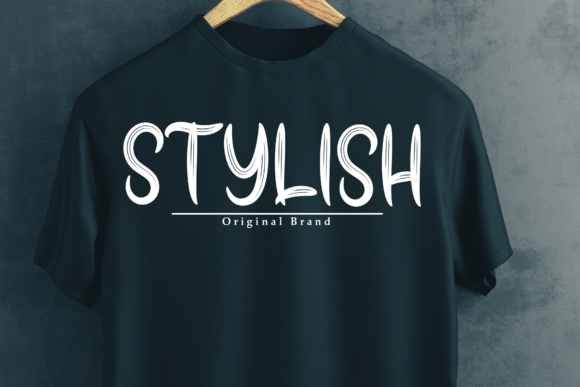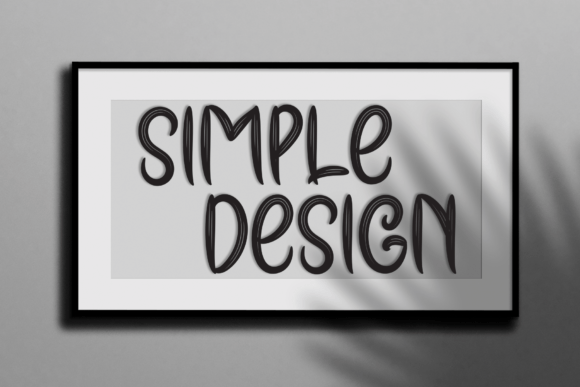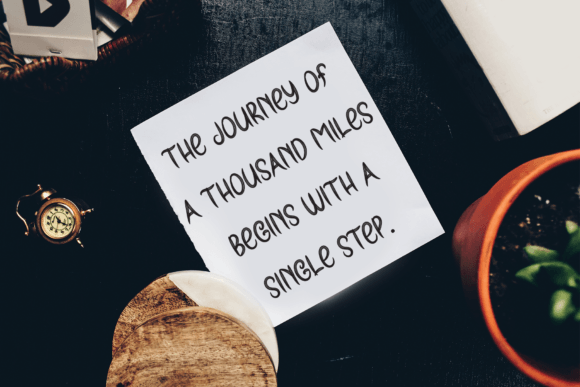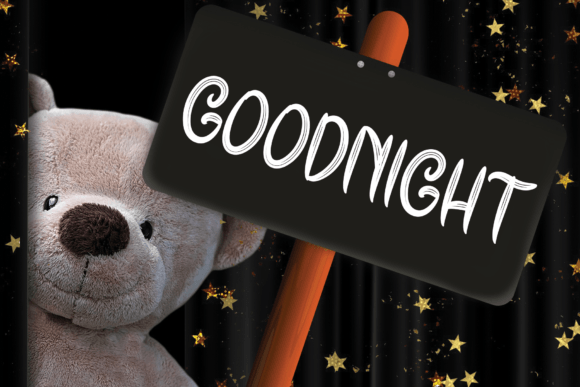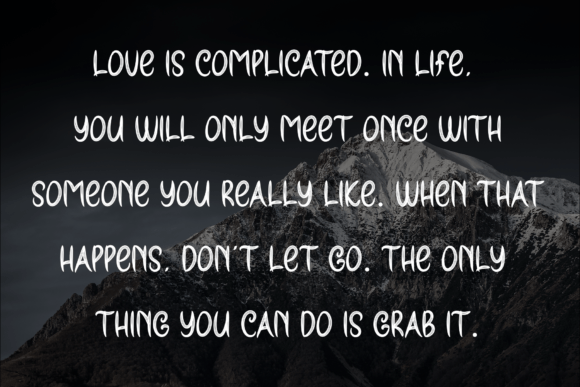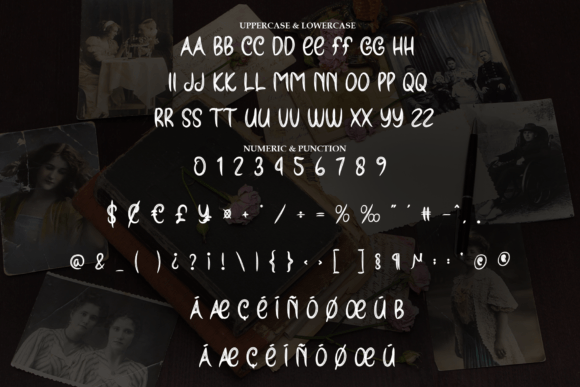
Introduction to Memory Picture Font
Have you ever found yourself scribbling down a loved one’s birthday message on a handmade card, only to realize that your handwriting doesn’t quite match the occasion’s sentimental value? This is where the Memory Picture Font comes in – a charming handwritten display font that brings a touch of warmth and personality to your designs.
As a valuable design resource, the Memory Picture Font offers a high-quality, free download option that’s perfect for any creative project. With its fresh and cute aesthetic, this font is ideal for writing wedding invitations, cards, or any other design that needs a fun touch. Plus, its transparent background makes it easy to pair with any image or design element, giving you complete creative freedom.
Whether you’re a seasoned designer or just starting out, the Memory Picture Font is a must-have in your design toolkit. Its versatility and charm make it a valuable addition to any design project, and its free download option means you can start using it right away.
Key Features of Memory Picture Font
- High-quality design resource ideal for creative projects, featuring a unique and eye-catching style.
- Comes with a transparent background, making it easy to integrate into any design.
- Features a range of characters, including uppercase and lowercase letters, numbers, and punctuation marks.
- Perfect for use in digital design, such as logos, icons, and graphics, as well as print materials like posters and business cards.
Honest Review: Memory Picture Font
I recently had the chance to work with the Memory Picture Font, a unique design resource that offers a wide range of illustrations. The font is perfect for creative projects that require a bit of whimsy and personality.
What works well: ✨ The font has a transparent background, making it easy to customize and integrate into any design. The high-quality illustrations are also a major plus, with intricate details that add depth and visual interest. I was able to download the font for free, which was a huge bonus. The font also offers a range of styles, from bold and playful to delicate and elegant.
- What I liked most about the font was its versatility and range of styles
- The transparent background made it easy to use in a variety of design contexts
- The high-quality illustrations were a major draw for me
Overall impression: I was pleasantly surprised by the Memory Picture Font. While it’s not without its limitations, it’s a great resource for designers looking for a unique and creative solution. With its high-quality illustrations and transparent background, it’s a great choice for designers working on a variety of projects.
How to Use Memory Picture Font
The Memory Picture Font is a versatile design resource that can be used in a variety of creative projects. With its high-quality, transparent background, this font is perfect for adding a personal touch to your designs.
Getting the Most Out of Memory Picture Font
For optimal results, use the Memory Picture Font with a clear and simple design. Experiment with different font sizes, colors, and styles to find the perfect combination for your project.
The Memory Picture Font is perfect for:
- Creating custom graphics and invitations
- Designing social media posts and ads
- Developing brand identities and logos
- Adding a personal touch to presentations and documents